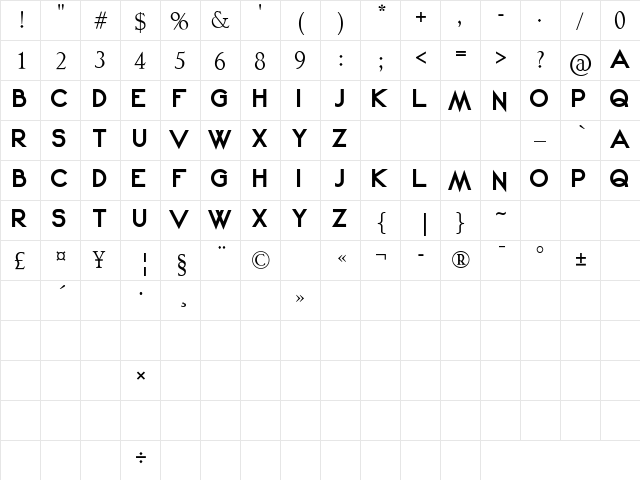
Bold Kei Regular Font Preview
Bold Kei Regular
Bold Kei Regular Font Details
Design Context for Bold Kei Typeface
Bold Kei takes a measured approach to typography — its balanced proportions and neutral character make it a reliable workhorse for both digital and print work. The heavy weight commands attention and anchors typographic hierarchies.